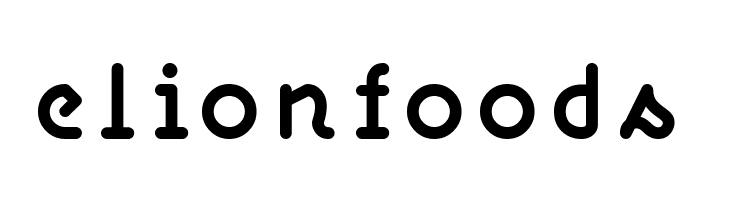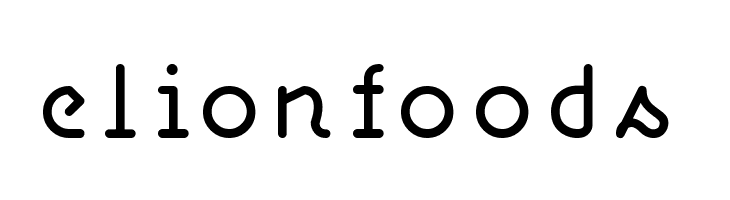
A bold, modern sans-serif font with geometric precision and rounded edges.
A modern, geometric font with uniform stroke widths and a clean, minimalistic design.
A playful, hand-drawn font with quirky, animated strokes.
A modern sans-serif font with clean lines and balanced proportions.
A bold, modern typeface with strong lines and a slightly condensed form.
A playful, bold font with rounded edges and a hand-drawn style.
A playful and quirky font with unique, rounded character shapes.
A playful and bold font with rounded, quirky characters.
A playful and quirky font with unique twists and modern flair.
A playful, handwritten font with a casual and friendly appearance.
A bold, playful handwritten font with rounded, consistent strokes.